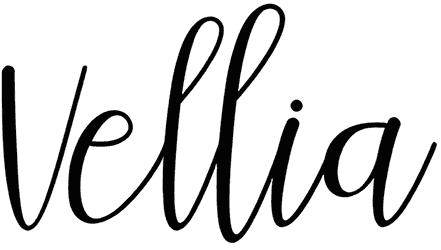
Vellia Font
If you feel that your graphic content is becoming boring to the audience, you can boost the visibility of your posters, gift cards, magazines, or billboards with the help of a script font such as Vellia. This calligraphy font carries soft and delicate characters, thus it can lead to a feeling of drama, vitality, or personalization.
Endri Sulistyawan
Rashatype